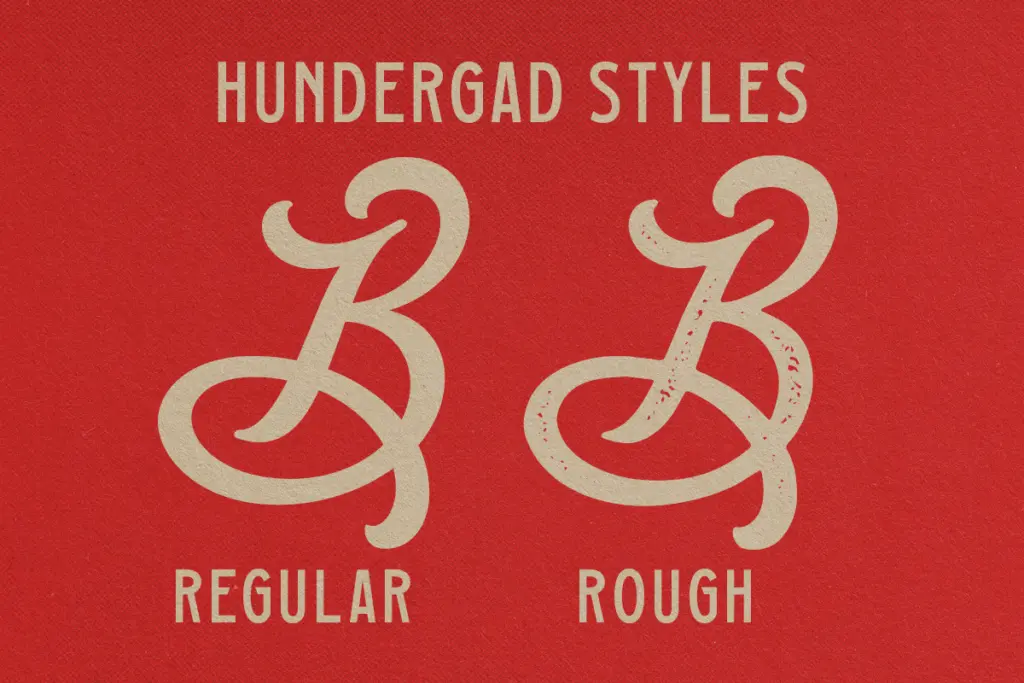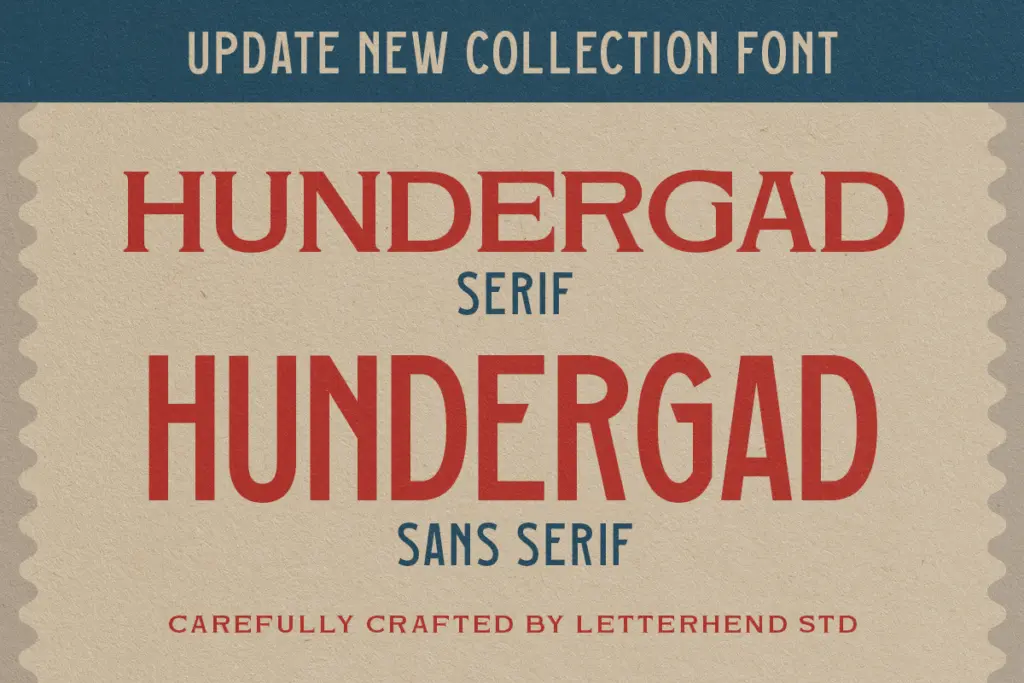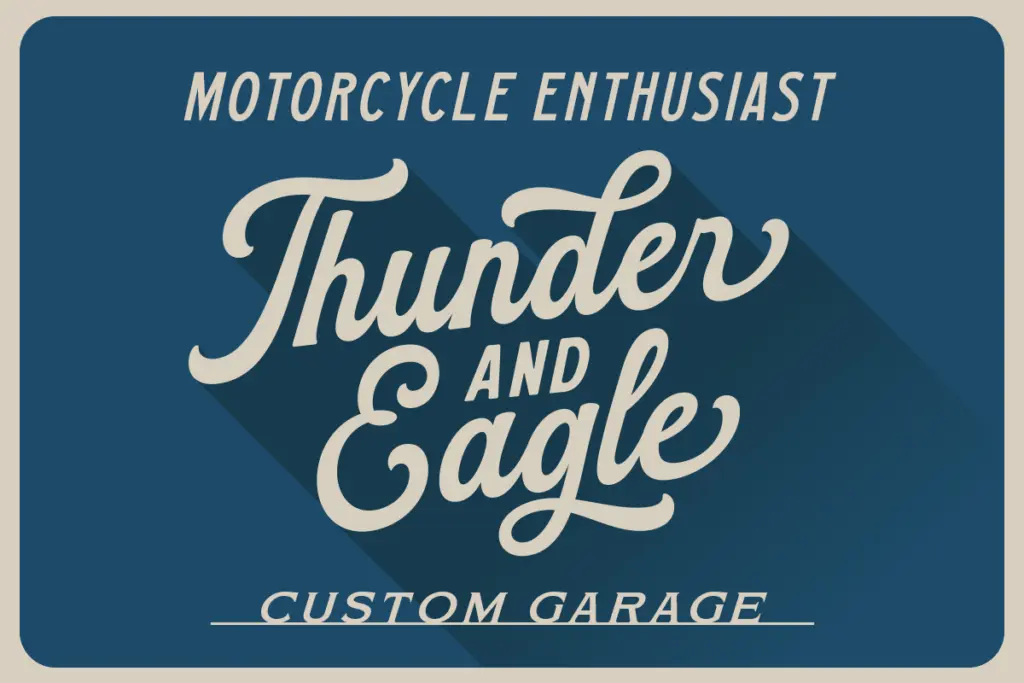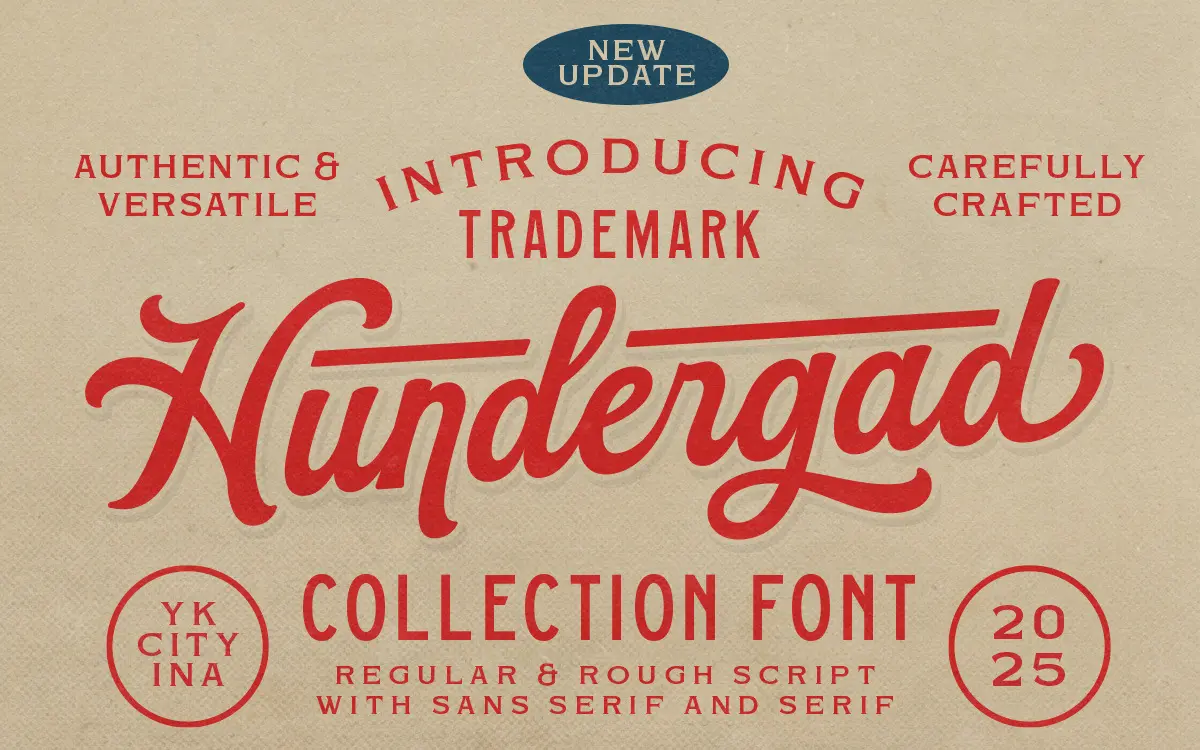
Hundergad started life as a single bold script and has been expanded into a small family: the original script (with a rough companion), a sans, and a serif, both regular weights. The script carries the personality of the set. It’s a heavy, confident hand with thick, ink-loaded strokes and connecting letterforms that lean toward hand-lettering rather than formal calligraphy. The rough version adds texture — broken edges, inconsistent stroke weight, the kind of worn-in look meant to suggest something stamped or brushed rather than typeset.
The sans and serif companions are plainer by design. They’re not trying to compete with the script; they exist to give it somewhere to sit. That’s a sensible structural choice for a collection built around a loud lead face, though it does mean the sans and serif on their own are unremarkable — solid, workable, but not the reason anyone buys this set.
The collection covers uppercase and lowercase, numerals, and punctuation across all styles, with multilingual character support and PUA-encoded alternates for the script. Swash and alternate characters are included, but as with most scripts of this type, they’re only reachable through OpenType-aware software with a glyphs panel — Illustrator, InDesign, CorelDraw and similar. Drop the font into something that doesn’t read OpenType features and you’ll get the default glyphs only, without the alternates that make the script feel less repetitive across longer settings.
The rough texture on the script variant is baked into the outlines rather than applied as an effect, so it stays consistent at whatever size you scale it to, which is worth noting given how often distressed scripts fall apart under enlargement. Because the family bundles four distinct styles, there’s some inevitable unevenness in polish — the script is clearly where the design attention went, and the supporting sans and serif read as functional rather than fully considered.
This is a logo and packaging font first. The bold script works well as a wordmark for craft goods, apparel drops, coffee and spirits labels, or anything trading on a rustic, handmade signal. Paired with its own sans or serif for supporting text — ingredient lists, taglines, addresses — the collection gives you a coordinated look without hunting for a second typeface elsewhere.
It also suits wedding stationery and invitations where a heavier script is wanted instead of a delicate one, though brides and planners after something more refined should look elsewhere; Hundergad’s charm is its weight and grit, not elegance. At body text sizes the script is not the tool — it’s built for headlines, short lockups, and single words, not paragraphs. Editorial or long-form use should lean on the serif or sans companions instead. Anyone using the alternates seriously should budget time to learn the OpenType workflow, since the seller’s own tutorial link is there for a reason — it’s not obvious in every app.
- Rough texture is baked into the outlines, so it holds up when scaled rather than looking like an applied filter
- Bundling a sans and serif alongside the script gives a ready-made hierarchy for labels and packaging
- PUA encoding means the alternates are reachable even in software without a full glyphs panel
- The sans and serif companions are functional rather than distinctive on their own
- Swash and alternate characters only surface properly in OpenType-savvy software, which limits quick use in simpler apps
Hundergad's script is the strongest part of this collection — heavy, textured, and genuinely useful for rustic branding and packaging. The bundled sans and serif are competent but plain, and the alternates require an OpenType-aware workflow to access, so factor that learning curve in before committing to it for a full brand system.